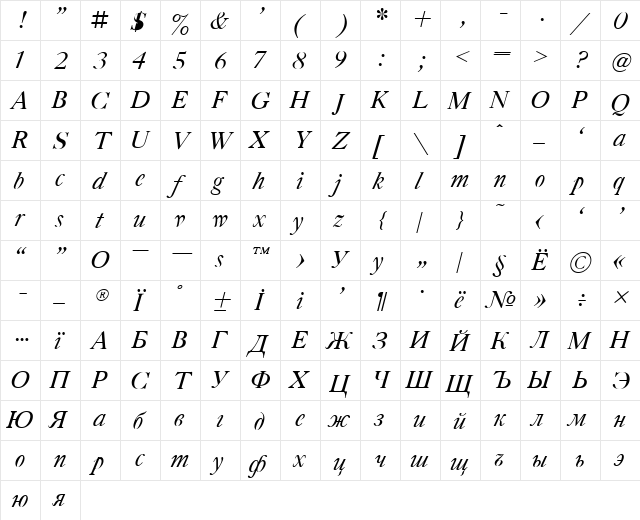
Gazeta Titul Italic
Design Context for Gazeta Titul Typeface
Gazeta Titul offers clean, dependable letterforms without strong stylistic allegiance, making it a practical choice for designers who need flexibility. The dynamic lean of this cut emphasises speed and emphasis in any layout.
Pro Tip: Use Gazeta Titul for emphasis, pull quotes, and subheadings where its slanted energy can add rhythm to the layout.